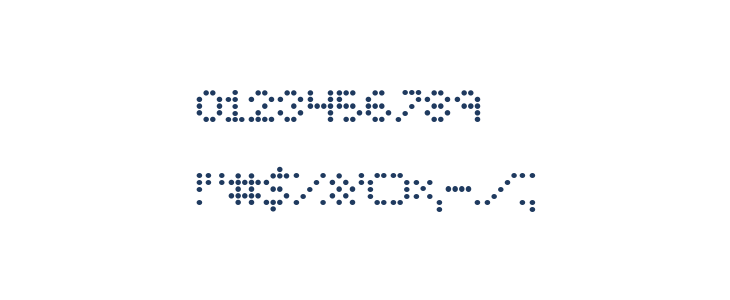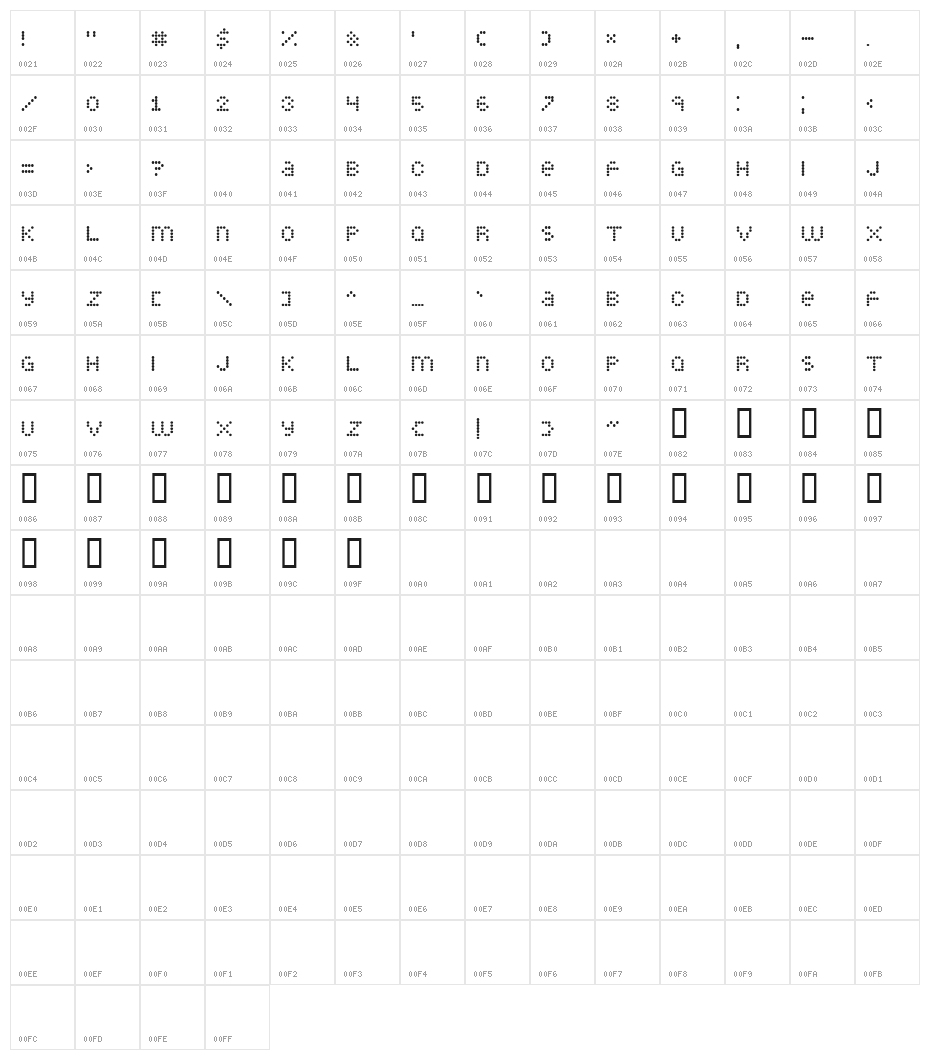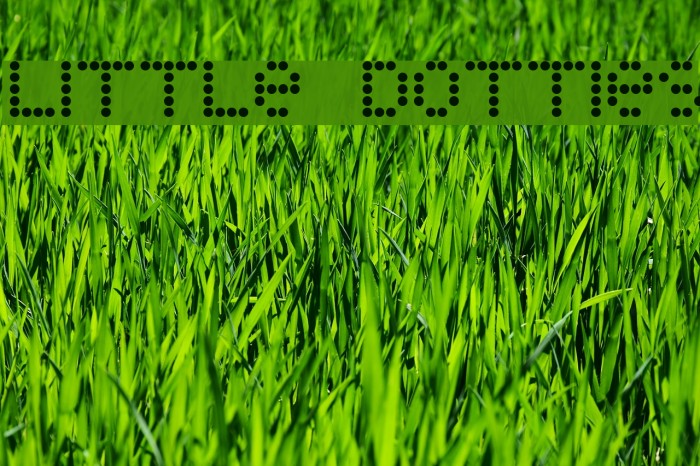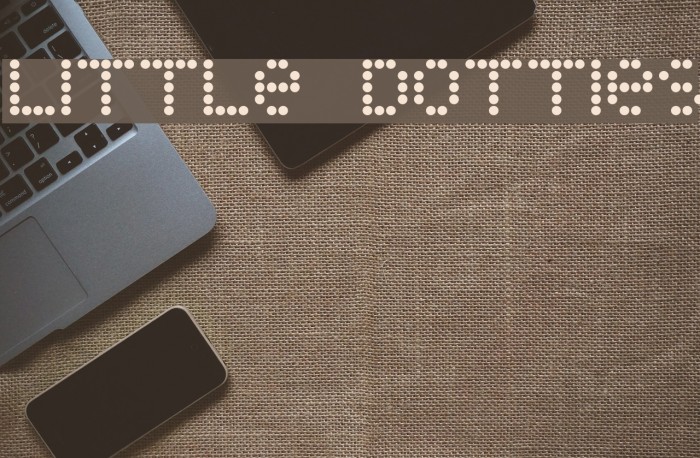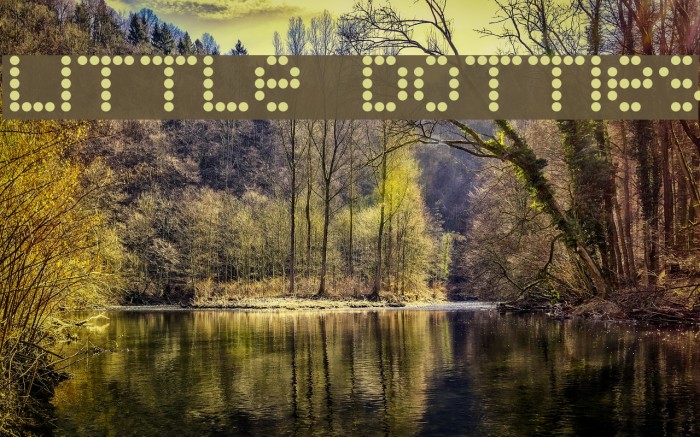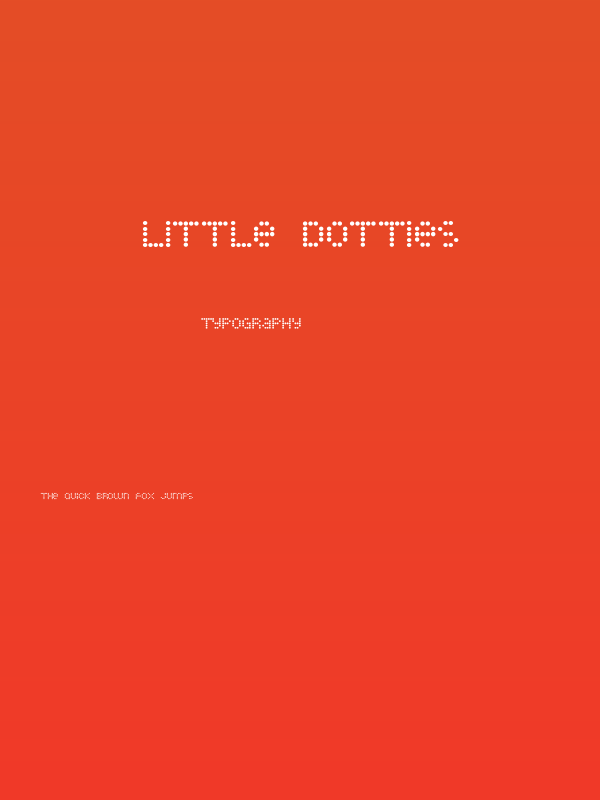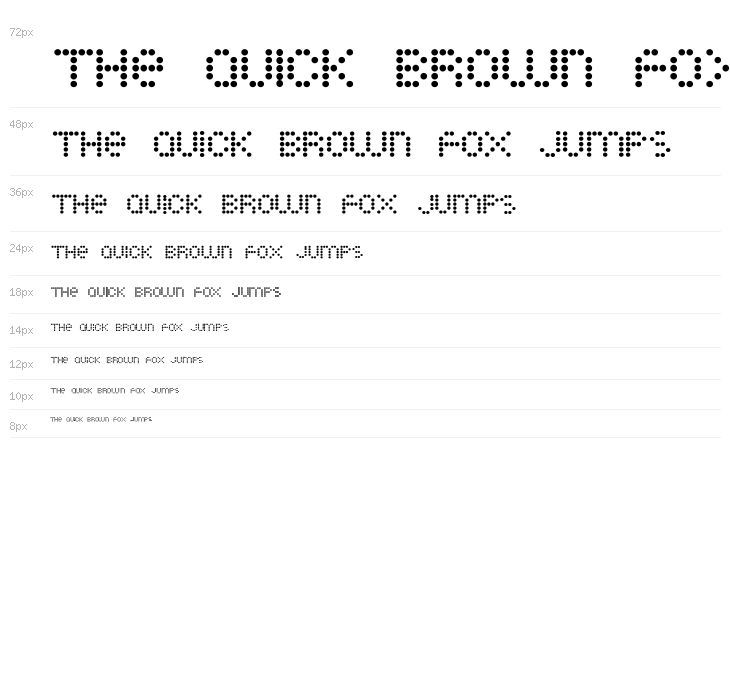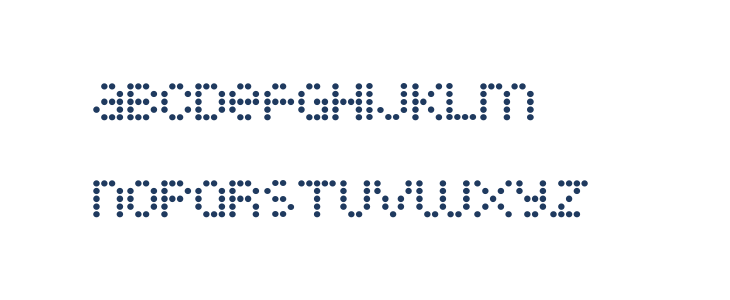
Little Dotties Font
Little Dotties Description
This font features a unique dot matrix style, where each character is composed of a series of evenly spaced dots. The design is reminiscent of digital displays or retro arcade games, offering a playful and modern aesthetic. The uniformity of the dots creates a consistent and cohesive look across all characters, making it highly legible despite its unconventional appearance. The font includes both uppercase and lowercase letters, numbers, and a selection of special characters, all adhering to the same dotted pattern. This style is particularly effective for projects that aim to convey a sense of technology, innovation, or nostalgia.
| Proposed Projects | Ideal for digital displays, retro-themed designs, tech branding, and creative posters. |